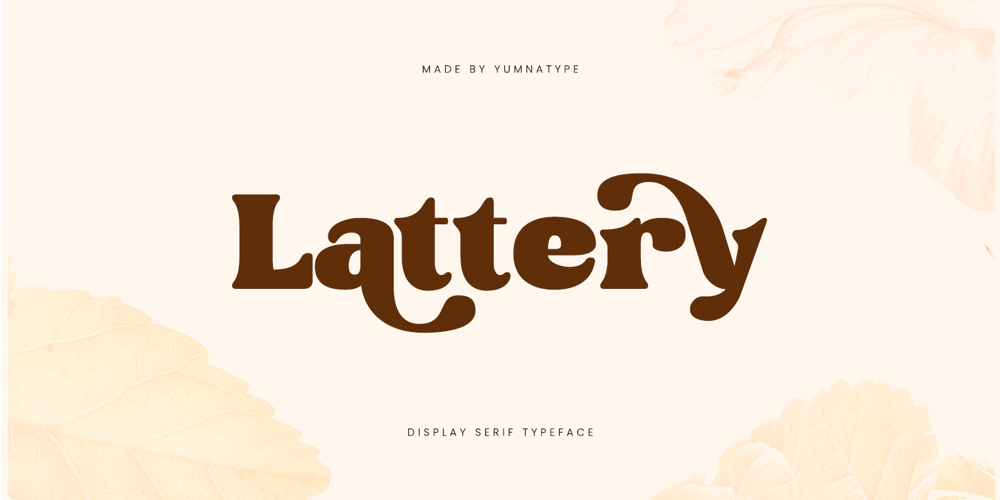
Lattery
Lattery font
Lattery Font Family was designed by Donis Miftahudin and published by Yumna Type. Lattery contains 1 styles and family package options. Lattery is a striking serif display font that commands attention with its bold appearance. Each letter in Lattery is meticulously designed with rounded shapes that add a touch of softness to your text. The thick weight of the font adds a sense of solidity and presence. On the other side, the visible contrast between thick and thin strokes creates a dynamic and engaging texture.What sets Lattery apart is its consistent proportions, which ensure a harmonious and balanced composition. Whether used for short headlines or longer passages of text, this font maintains its visual impact and legibility. In addition, enjoy the features here.Features: Stylistic Sets Multilingual Supports PUA Encoded Numerals and Punctuations Lattery fits in headlines, logos, posters, flyers, branding materials, print media, editorial layouts, and many more designs. Find out more ways to use this font by taking a look at the font preview.Thanks for purchasing our fonts. Hopefully, you have a great time using our font. Feel free to contact us anytime for further information or when you have trouble with the font. Thanks a lot and happy designing.